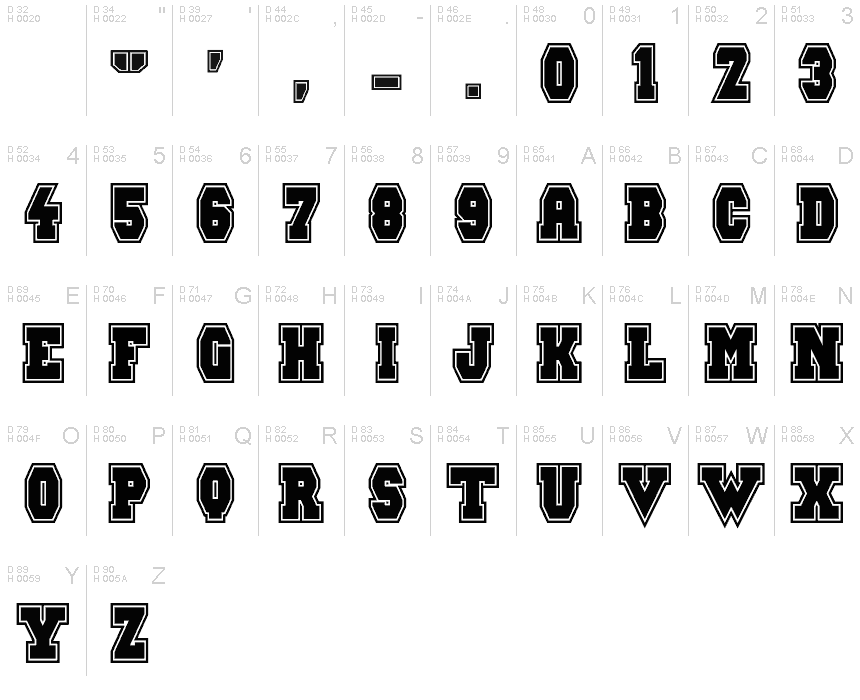
Maximum Strength is a bold, old-school display font that exudes a commanding presence. Designed by Imagex, this font is characterized by its thick, imposing strokes and sharp, angular terminals, evoking a sense of raw power and industrial strength. The letterforms have a distinct retro flavor, blending vintage aesthetic with modern sensibilities.
This font thrives in contexts where impact and visual dominance are paramount, such as headlines, logo designs, and attention-grabbing typography. Its robust character lends itself well to branding for industries like construction, manufacturing, or automotive, where a sense of solidity and durability is crucial. Maximum Strength's strong personality can also elevate the visual identity of rebellious, edgy, or masculine-leaning brands.